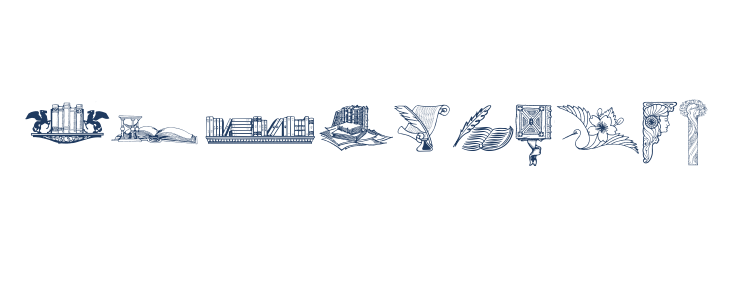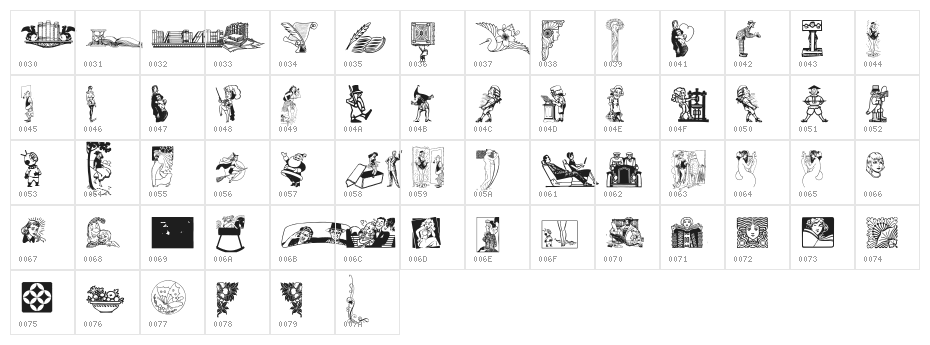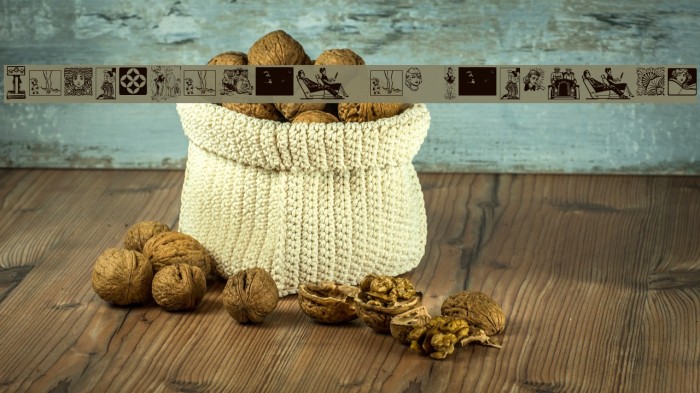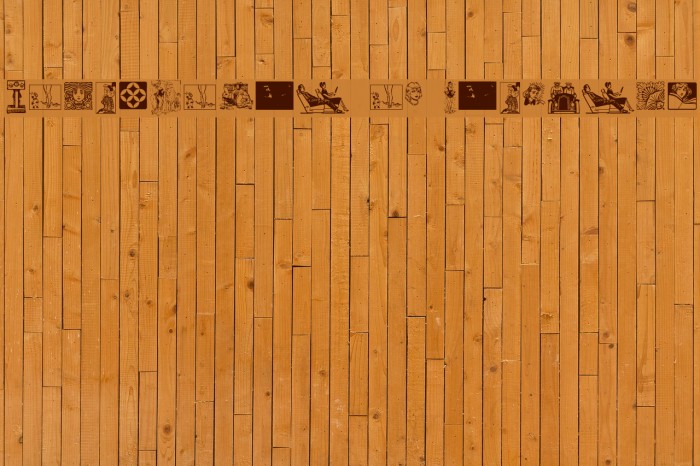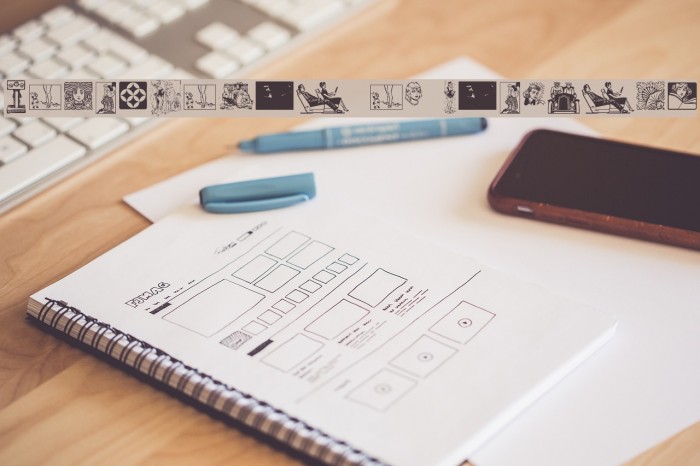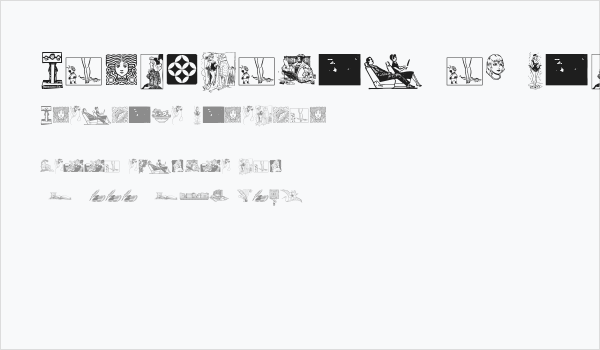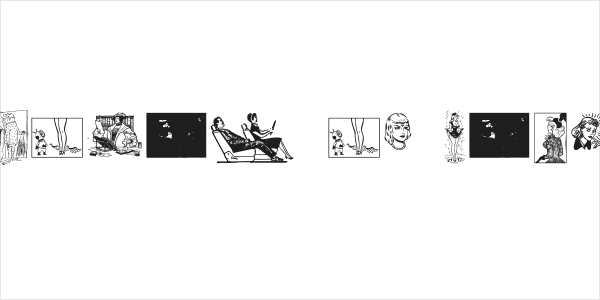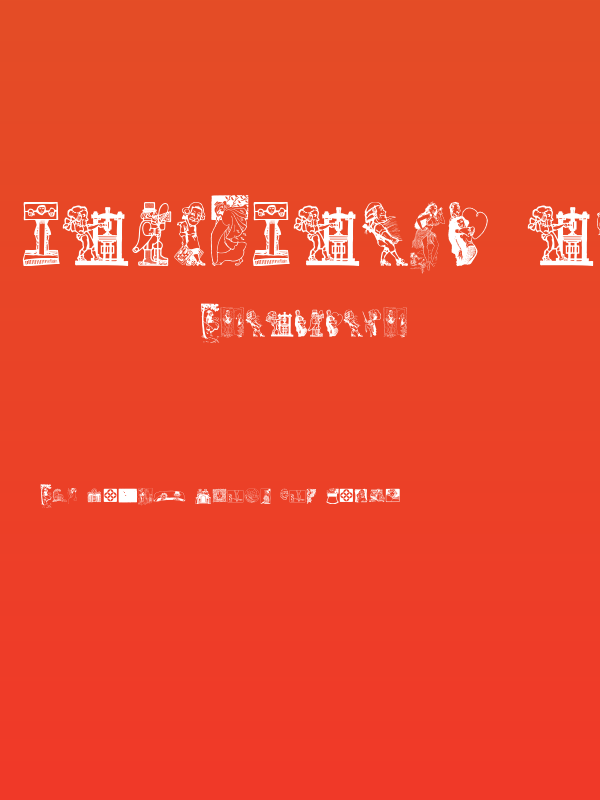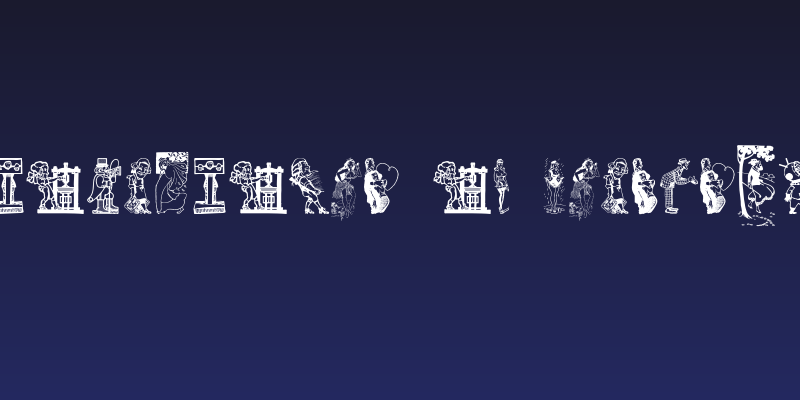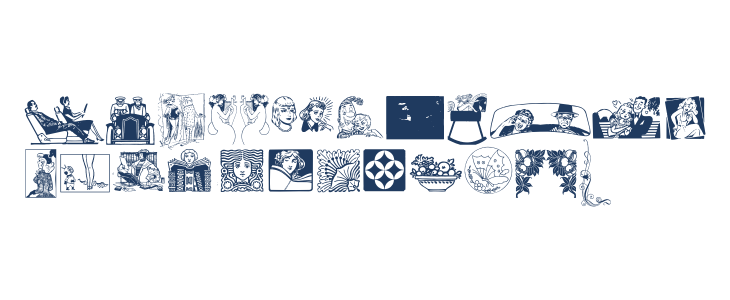
Cornucopia of Dingbats Font
Cornucopia of Dingbats Description
A decorative collection of detailed black-and-white illustrations and ornamental dingbats, featuring vintage-style characters, scenes, floral motifs, and geometric designs. Each glyph is unique and highly stylized, with intricate line work and a whimsical, retro aesthetic.
| Overall Style | Vintage, Decorative, Whimsical |
| Use Case | Decorative elements, embellishments, graphic accents |
| Proposed Projects | Book covers, invitations, posters, scrapbooking, decorative borders, vintage-themed branding, artistic projects. |